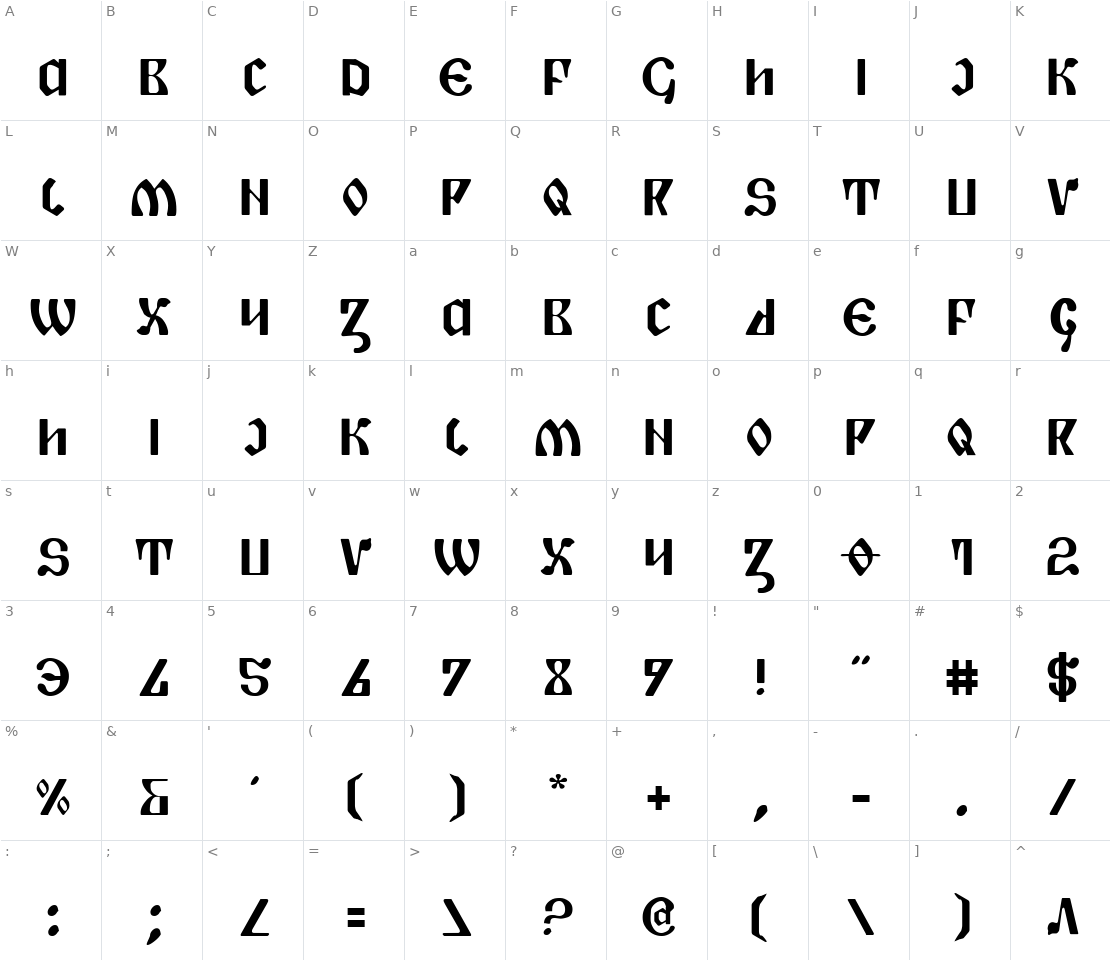
Piper Pie
Piper Pie is a bold, angular novelty face from Iconian Fonts with geometric letterforms that feel deliberately off-kilter, as if each character was assembled from mismatched puzzle pieces. The quirky, decorative shapes give it a personality that's hard to miss, landing somewhere between playful and sharp. Best kept to headlines and display use where its unusual geometry can do the talking.